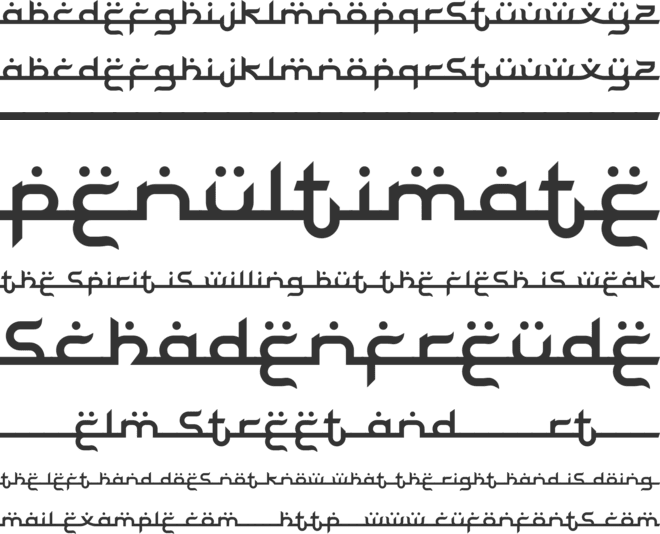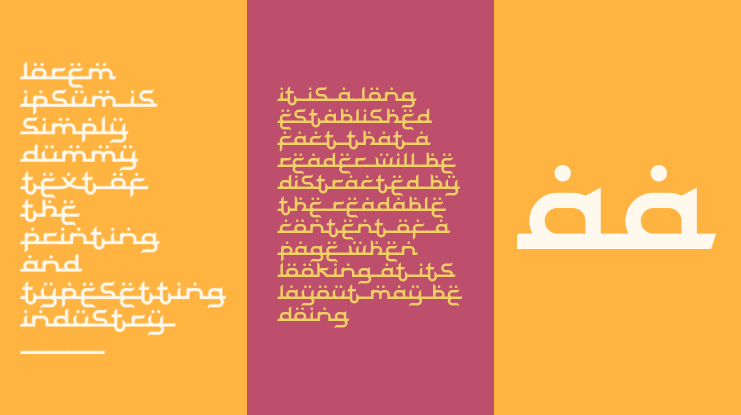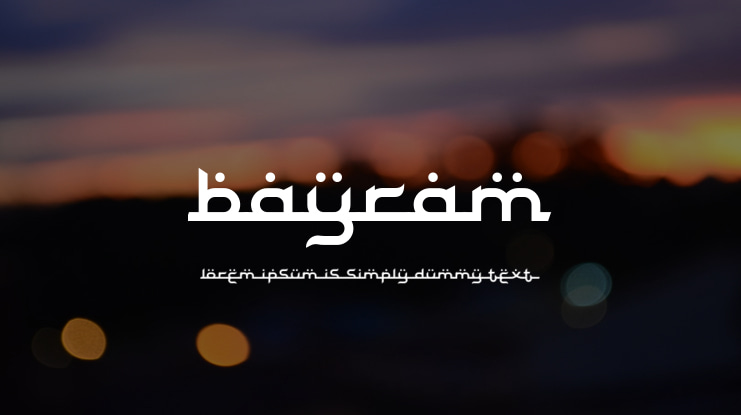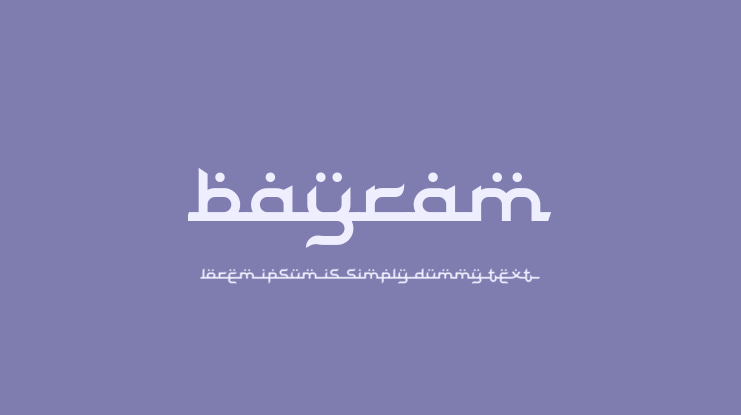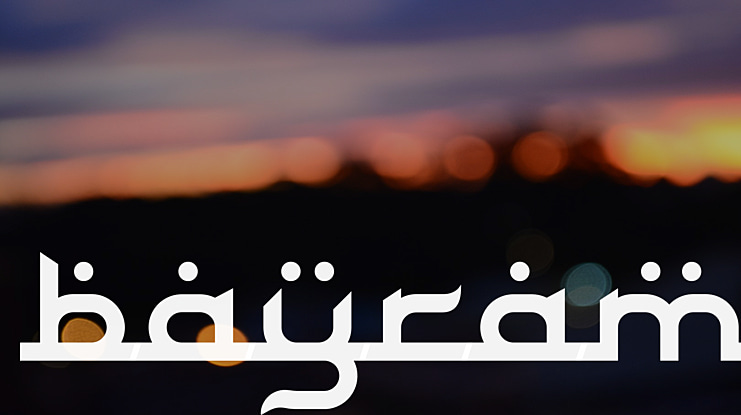
Bayram Font Family
Vladimir Nikolic
"Bayram" is superb Arabic font family. It comes in three different styles. Use it for for posters, flyers, book covers, menus and much more! Free for personal use. For commercial use, please order a license here: https://www.creativefabrica.com/product/bayram/ref/144265/